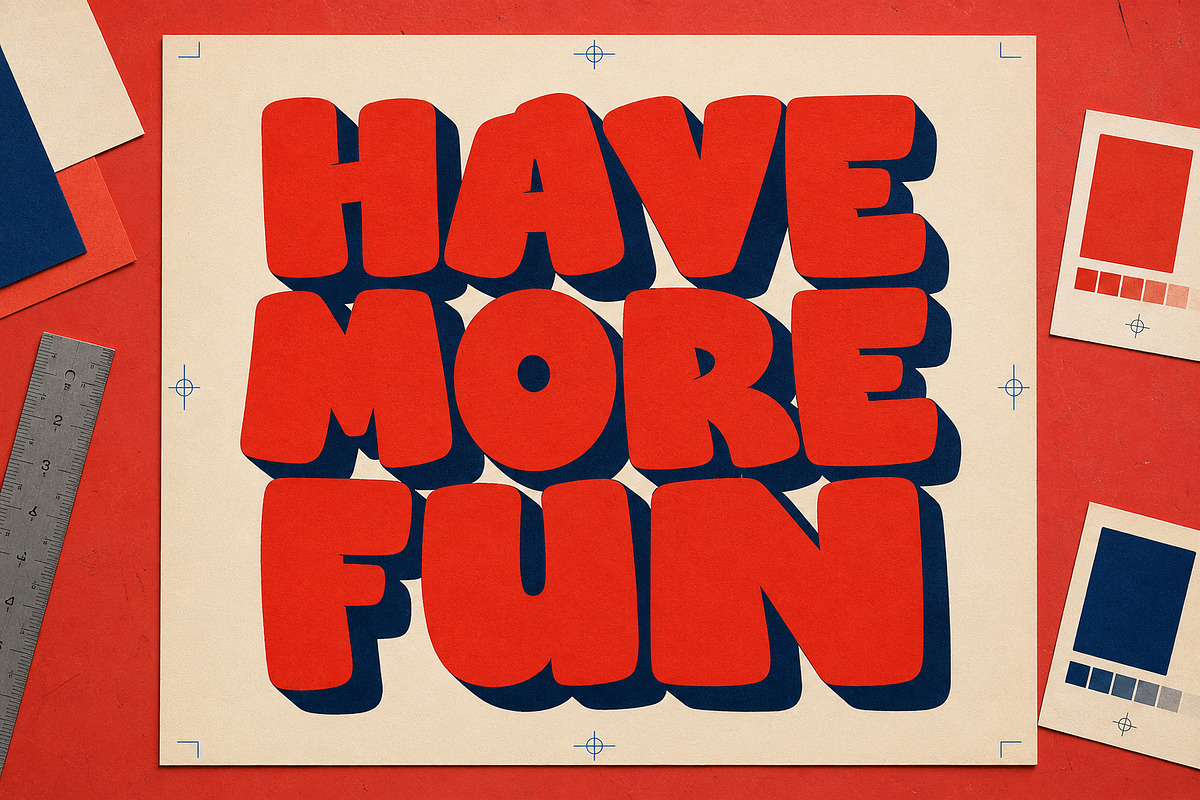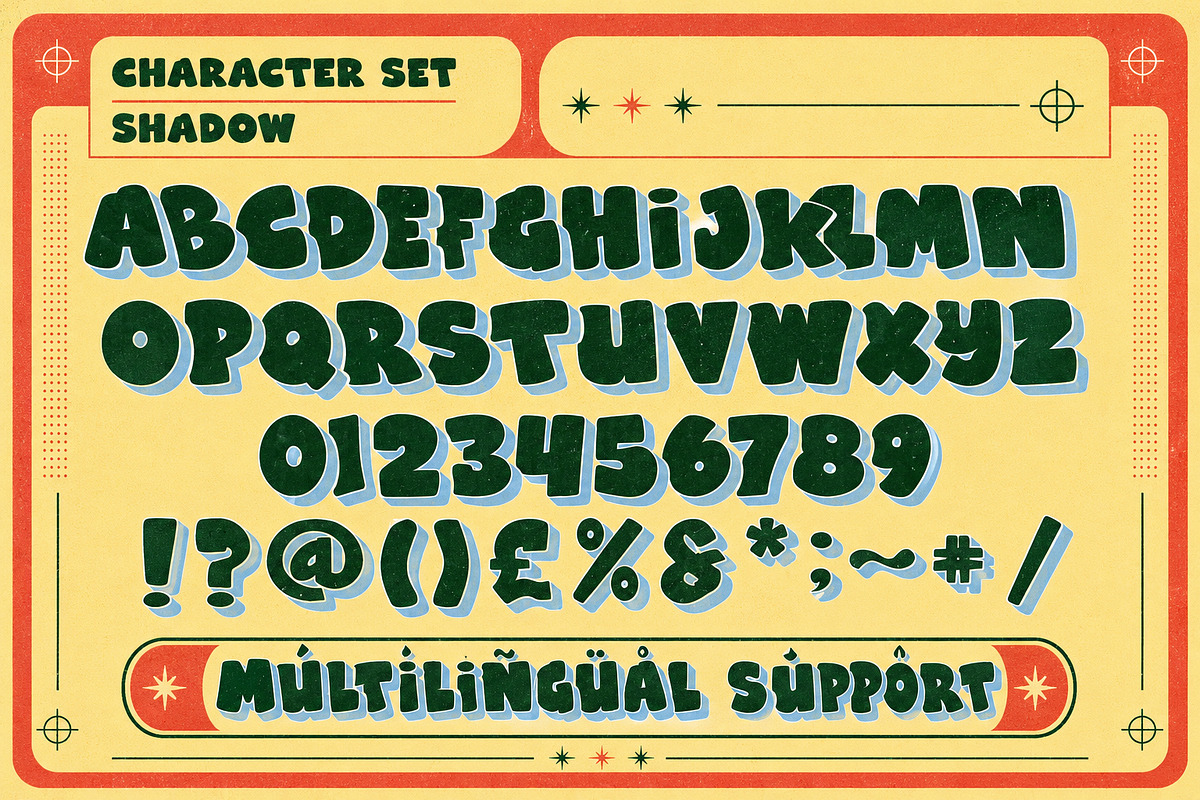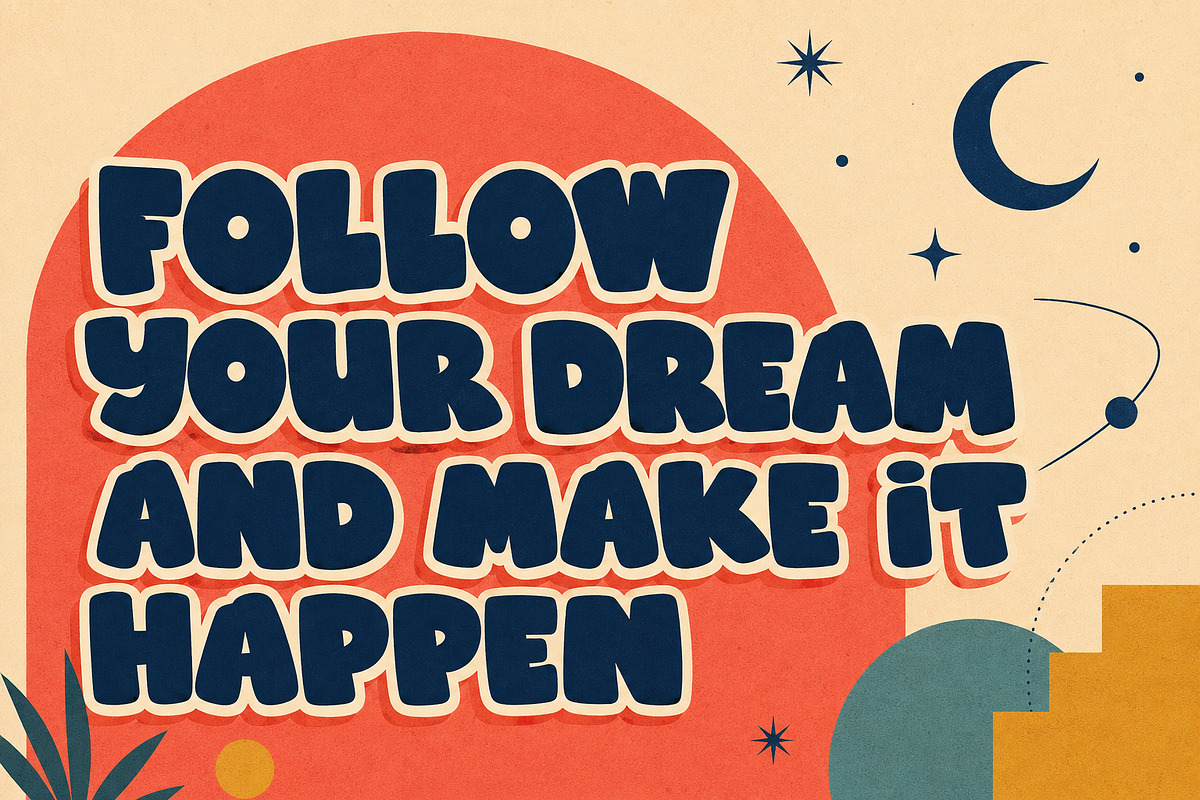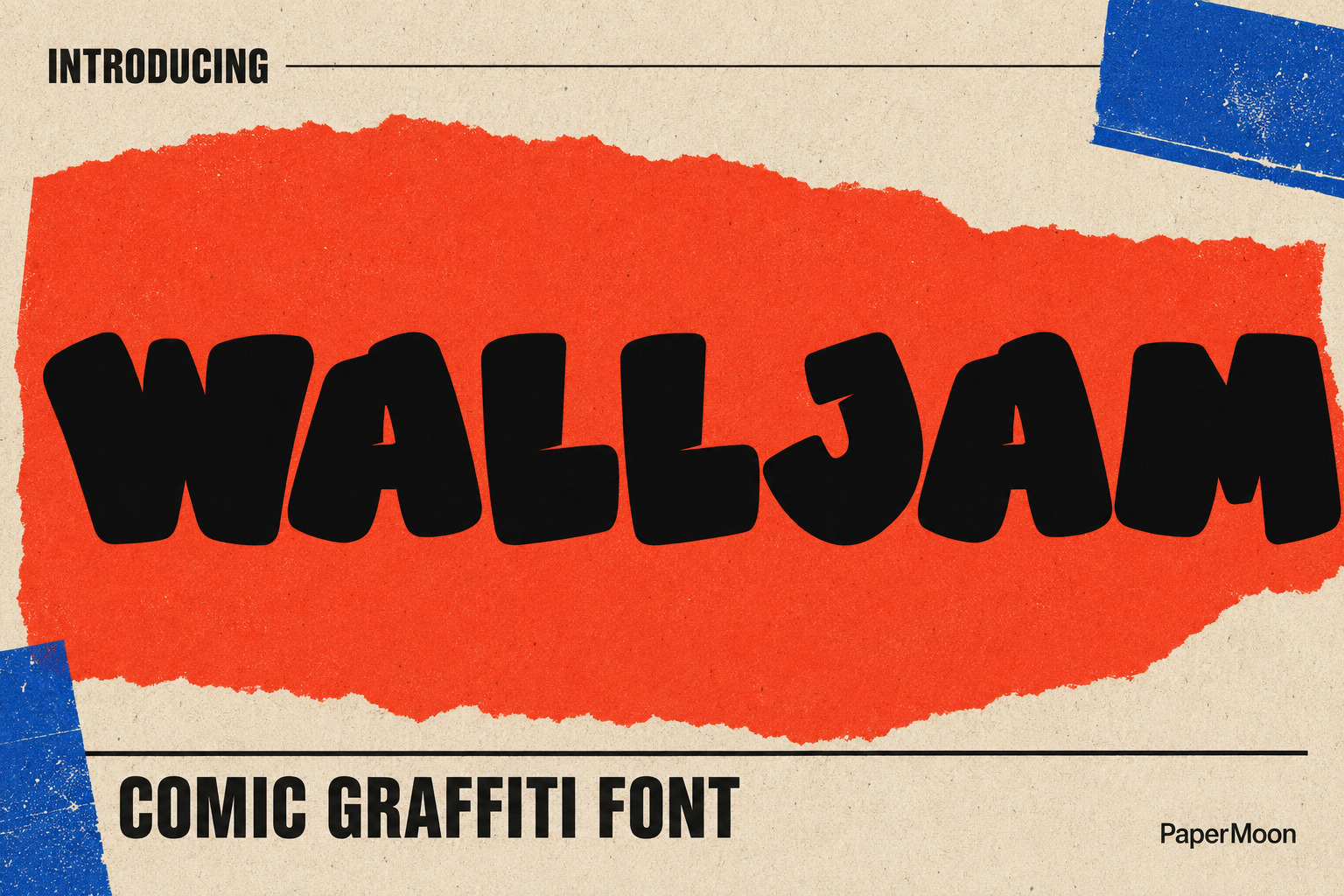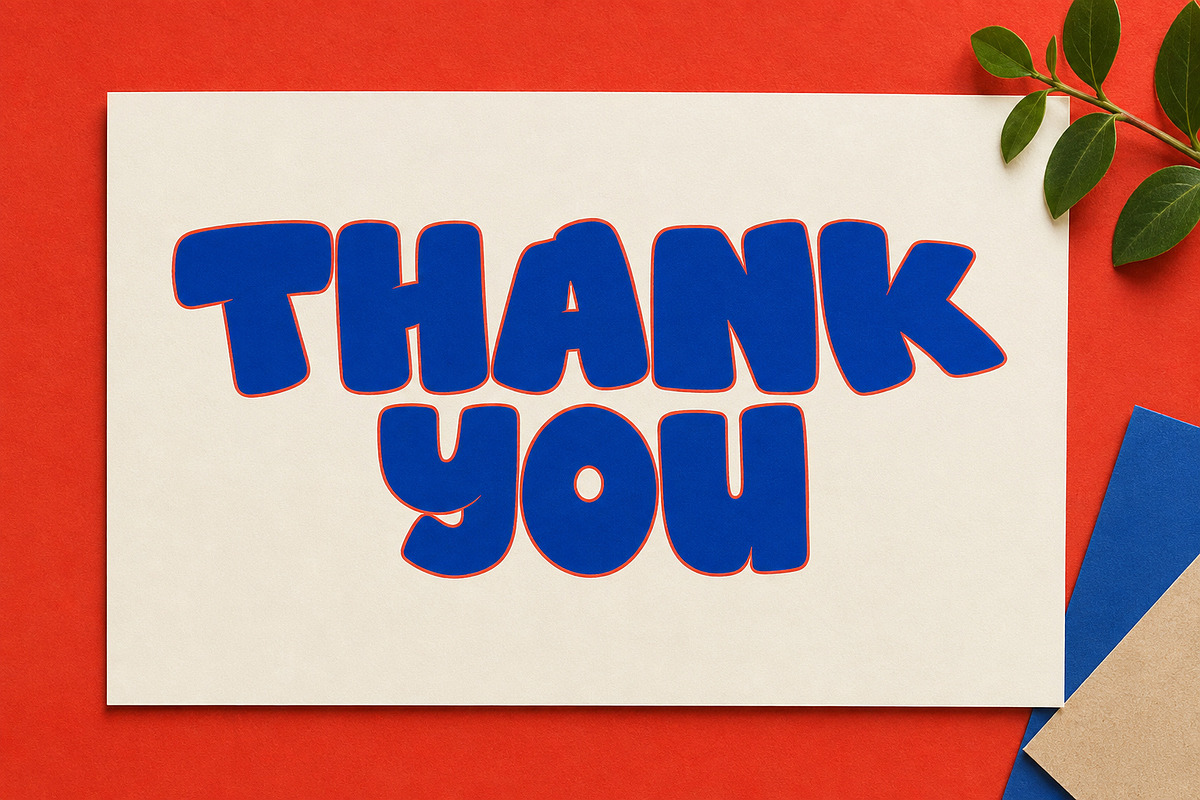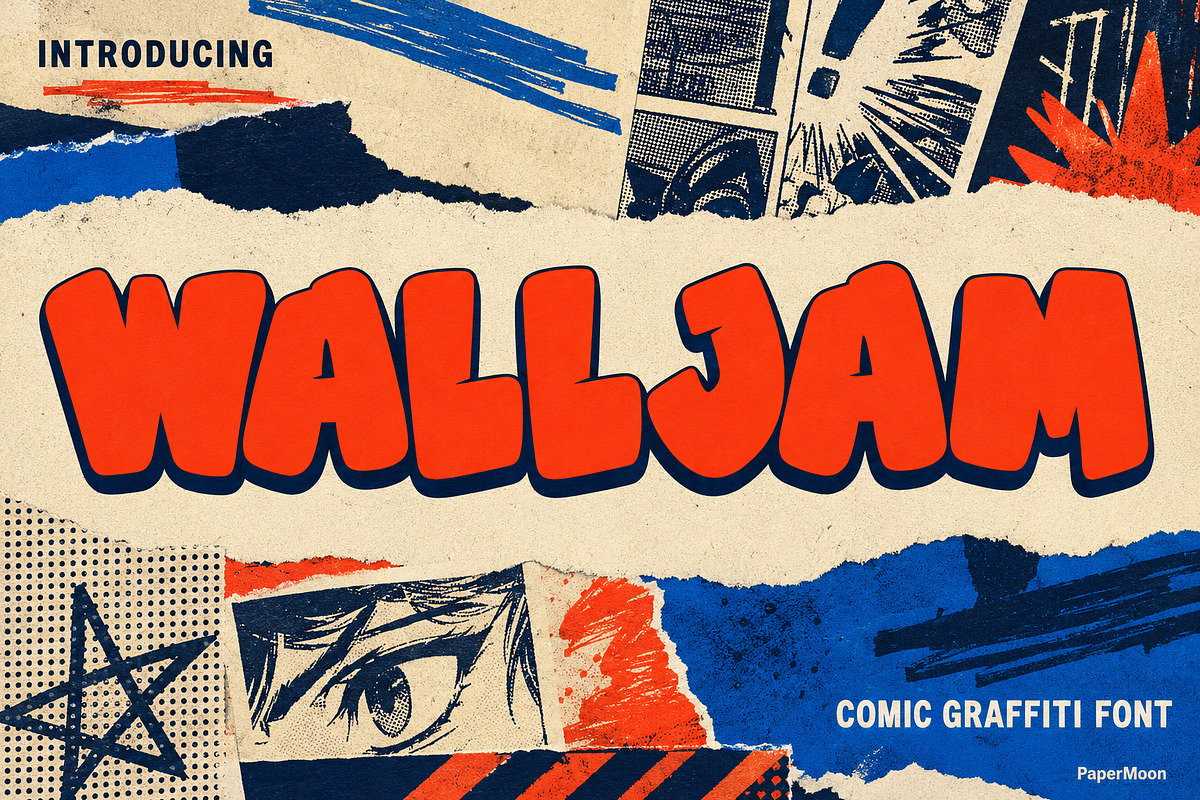
WallJam - Comic Graffiti Font Duo
WallJam is a comic graffiti font duo that brings chunky, hand-drawn street energy to your headlines. Bold comic-book lettering meets the raw attitude of painted walls, and the built-in 3D drop shadow adds instant depth to posters, stickers, streetwear, and playful branding.
Two coordinated styles do the heavy lifting: WallJam (the solid, high-impact regular) and WallJam Shadow (the same chunky lettering with a built-in 3D drop shadow). Stack them for layered title treatments or use the shadow style solo for single-pass dimension. The duo was designed to work together, so you get a complete display system from one purchase.
2 coordinated styles: WallJam and WallJam Shadow with a built-in 3D drop shadow for instant depth on every headline.
Built for kids' projects, playful branding, posters, stickers, streetwear, game HUDs, and thumbnails that need to pop. Whether you are designing a birthday party invite, a YouTube thumbnail, or a streetwear drop, WallJam gives your type a cheerful, energetic voice with real street presence.